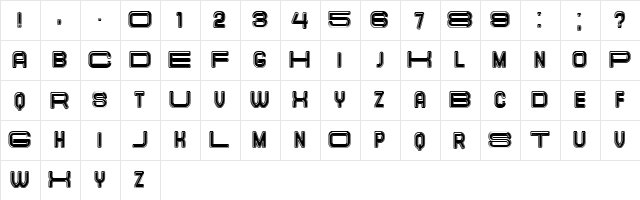
Elastic Letters Filled Regular
Design Context for Elastic Letters Filled Typeface
Elastic Letters Filled is a composed and adaptable typeface that performs quietly and consistently across a wide range of design contexts.